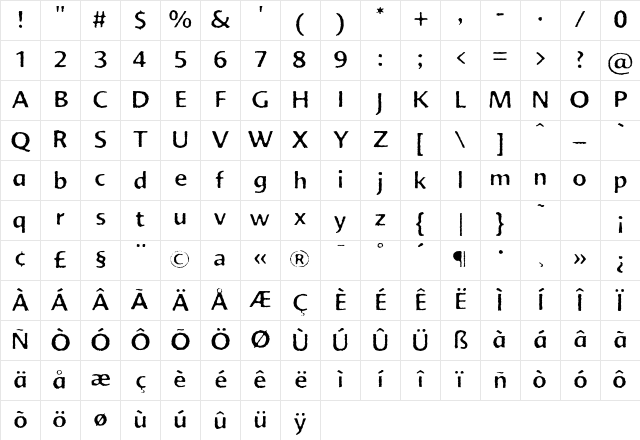
AdvertRough Two
Style: Two
Complete AdvertRough Two glyph index. Displaying only characters natively supported by AdvertRough Two font.
Design Context for AdvertRough
AdvertRough embraces imperfection - its rough, textured character adds raw authenticity to designs that want to feel lived-in and unconventional.
Pro Tip: Use AdvertRough at larger sizes where the texture and irregularity of each letterform can be clearly seen - it loses its character at small sizes.